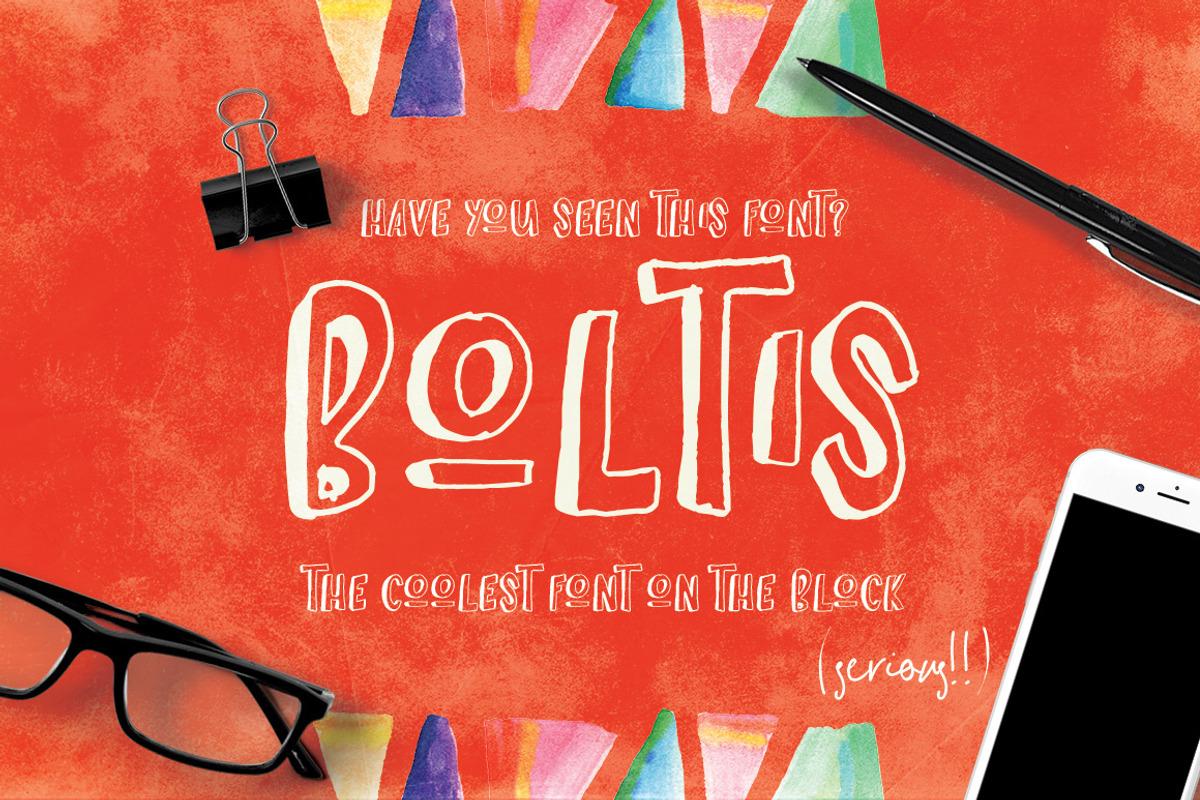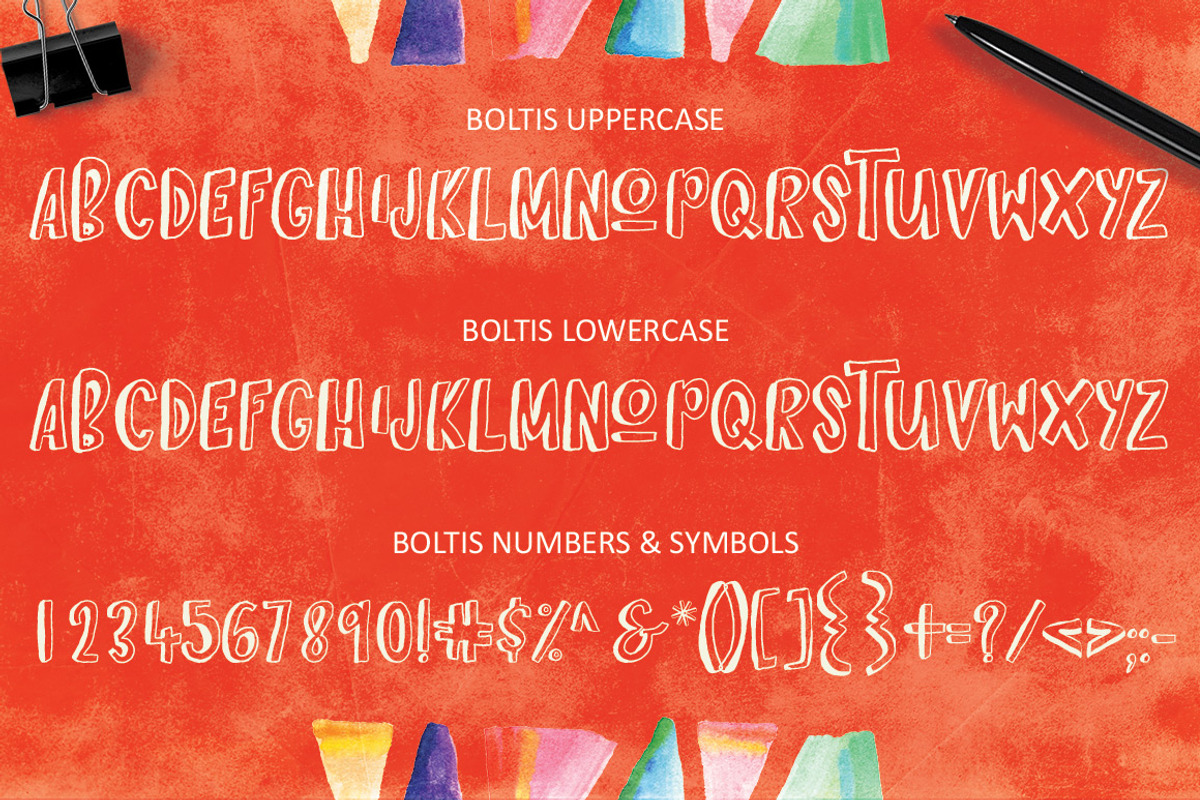
Boltis Font
This is Boltis. A trendy outline block font. This font is part of the Gobsmacking Font Bundle here
Boltis Font by Creativeqube Design fits naturally into Branding, posters, packaging, typography.